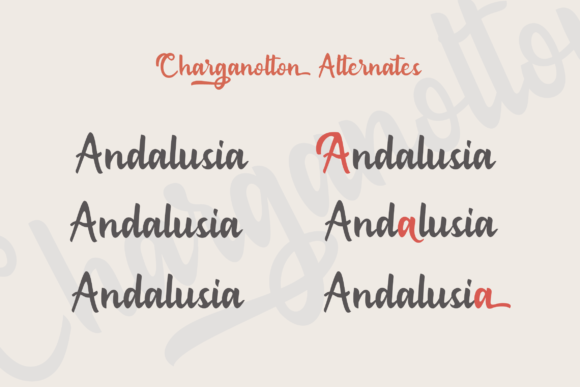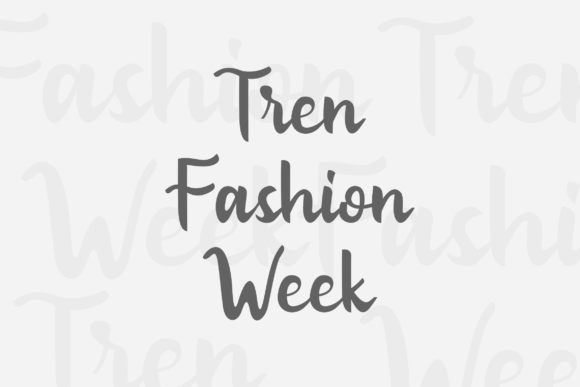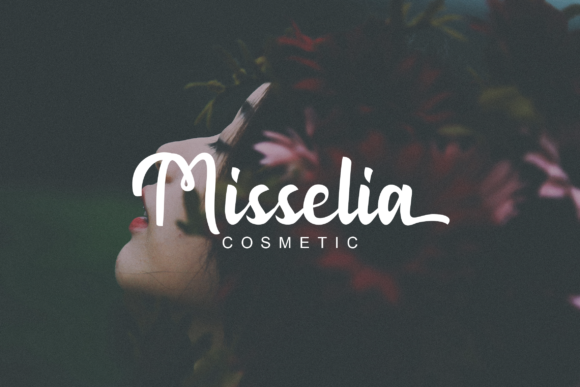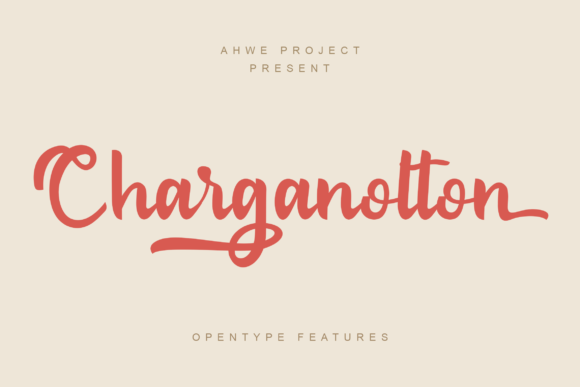
Introduction to Charganolton Font
Charganolton is a playful and cute script font that will turn any design idea into an authentic piece of art.
It will deliver any message with grace, confidence, and style .
Key Features of Charganolton Font
Why Choose Charganolton Font?
Charganolton Font offers exceptional quality and versatility, making it a valuable addition to your design toolkit. Whether you’re creating for personal projects or commercial use, Charganolton Font delivers professional results.